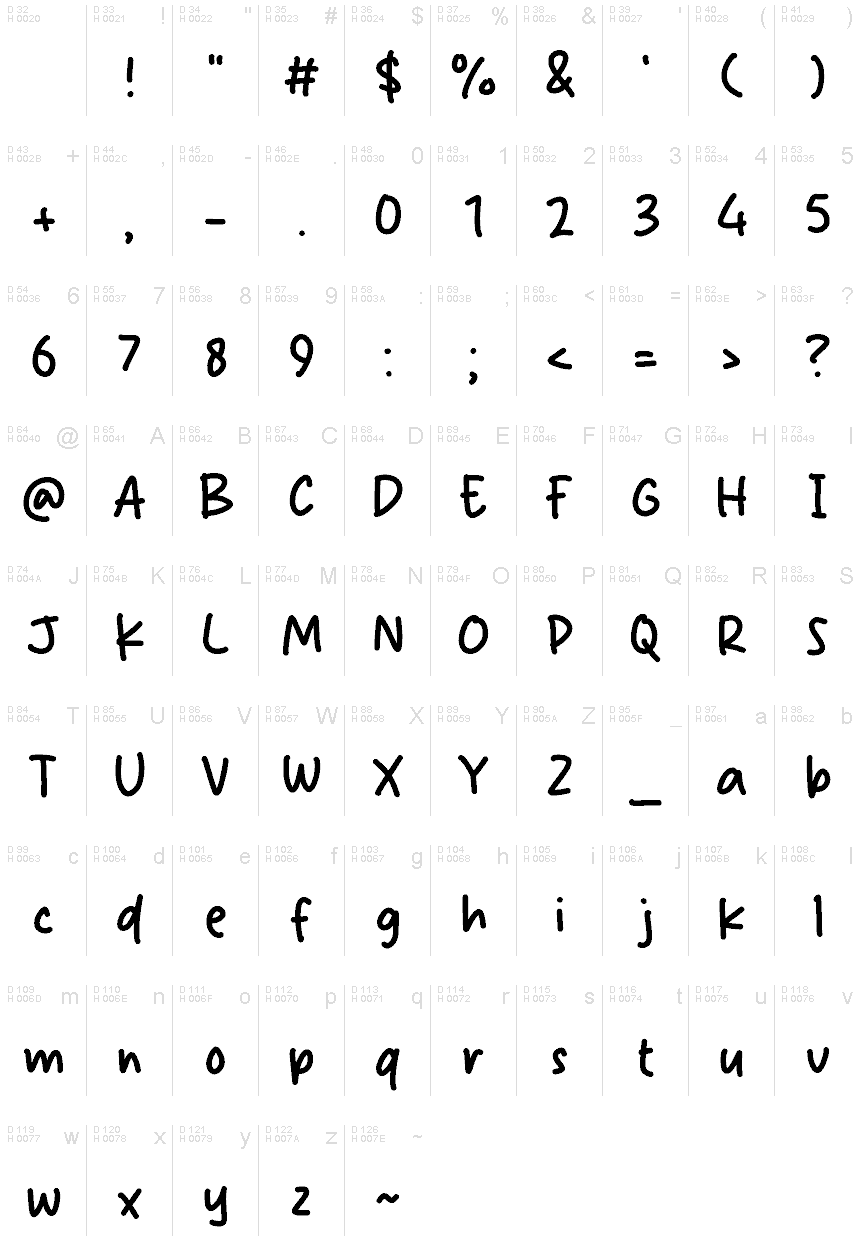
Social Company
Social Company font is a handwritten style font designed by Origin Type. Featuring a casual, approachable, and modern feel, the typeface has a friendly appearance suitable for contemporary applications in social media branding and lifestyle products. The harmonious letters flow naturally together and offer multi-industry uses.
The free handwritten font is perfect for quotes, greeting cards, personalized stationary projects, motivational posters, photography captions, digital advertisements, and websites.